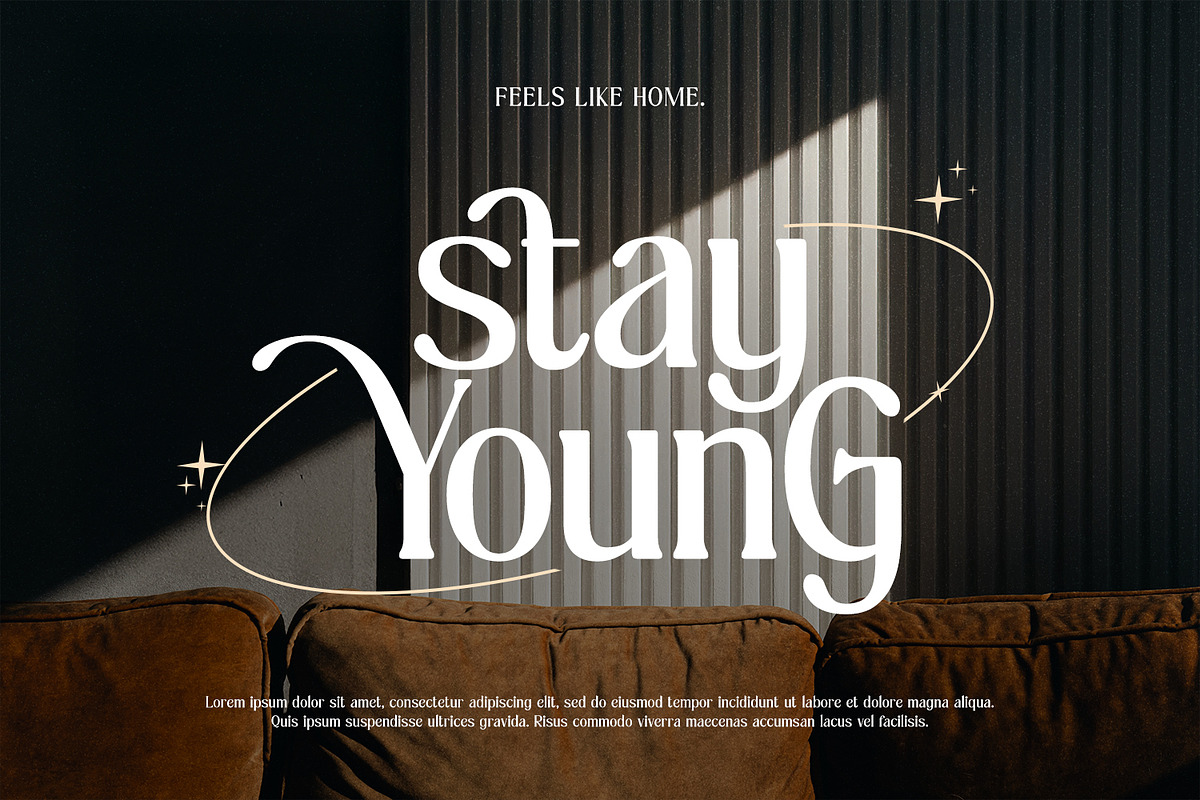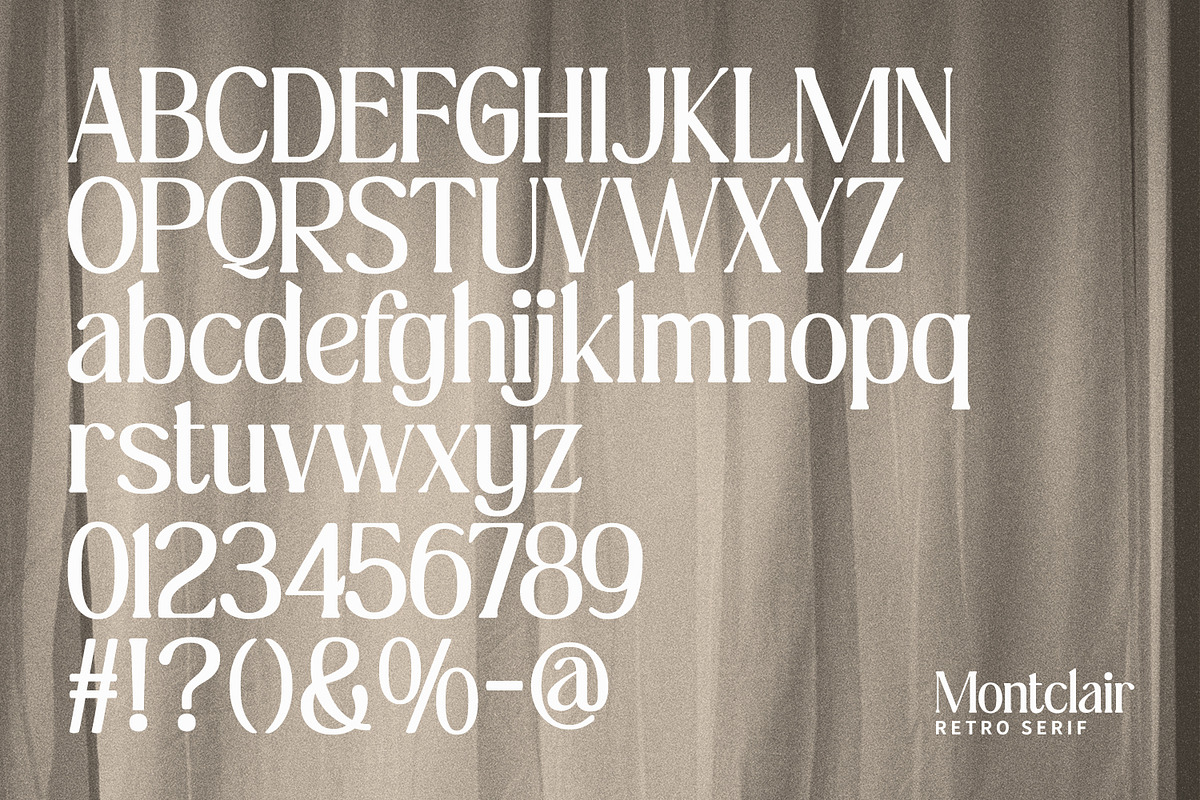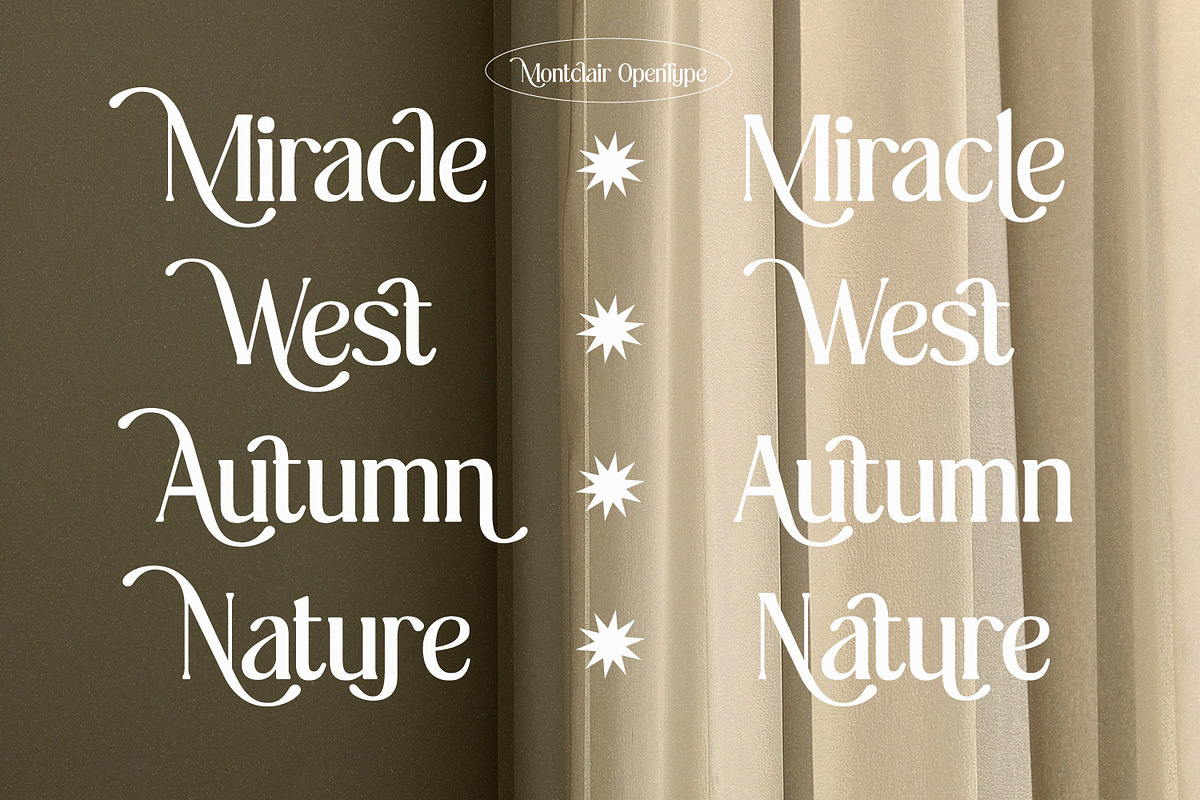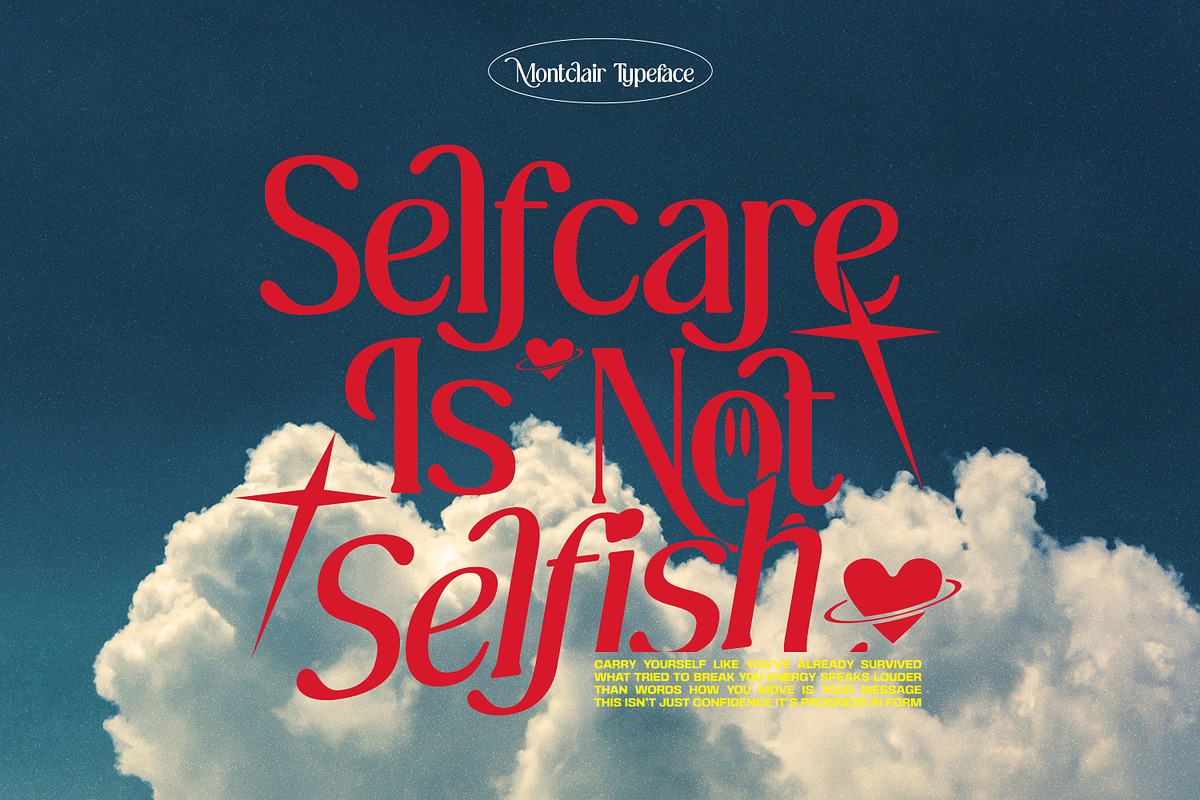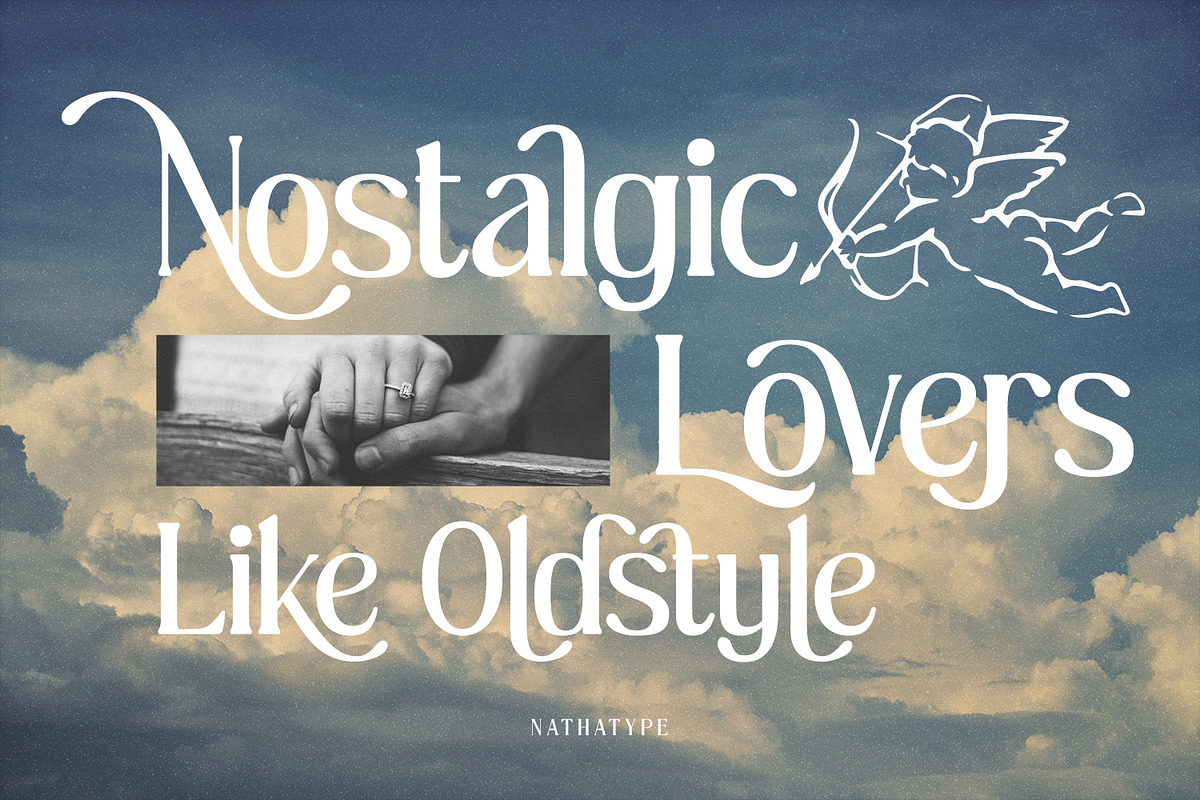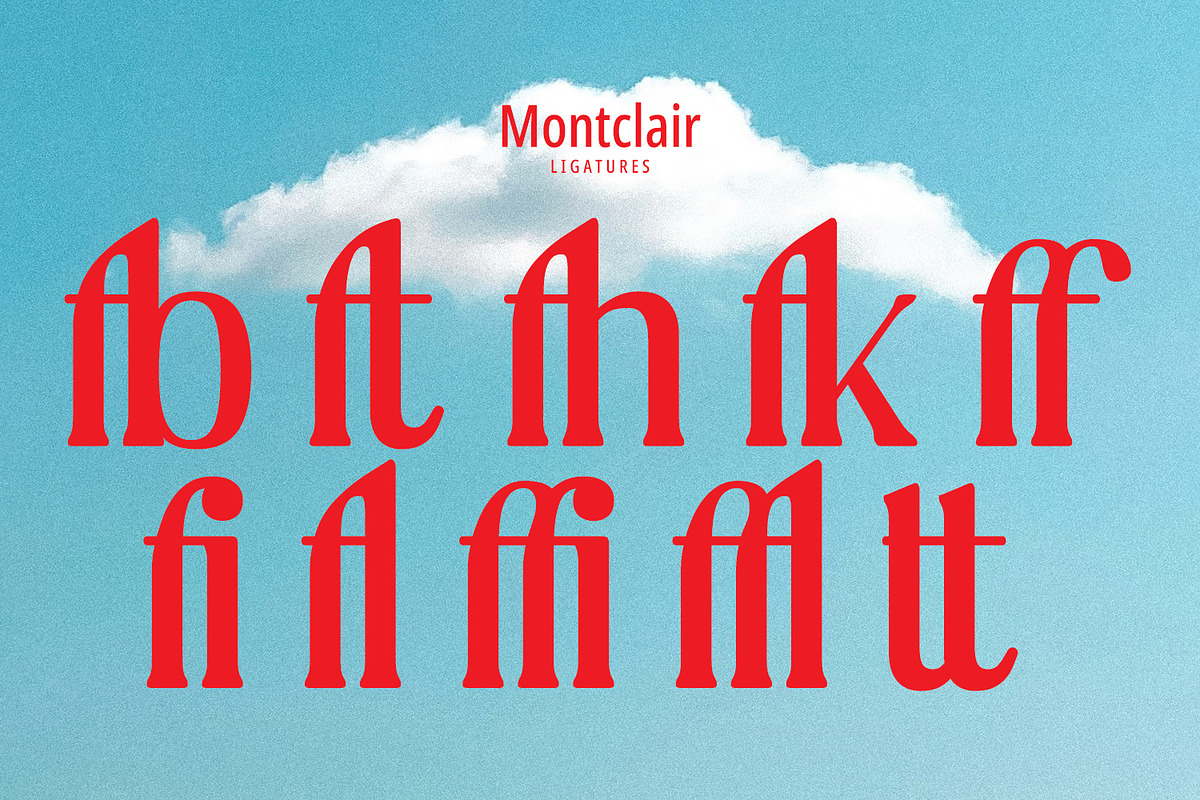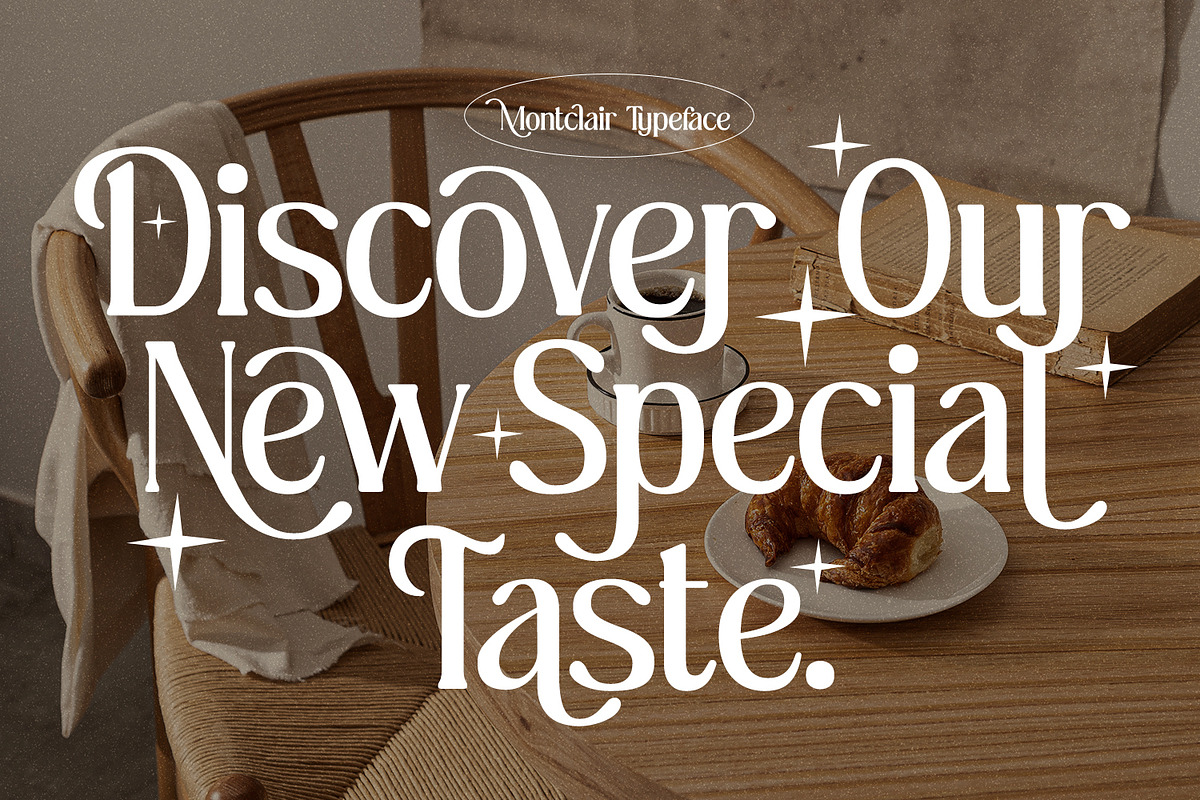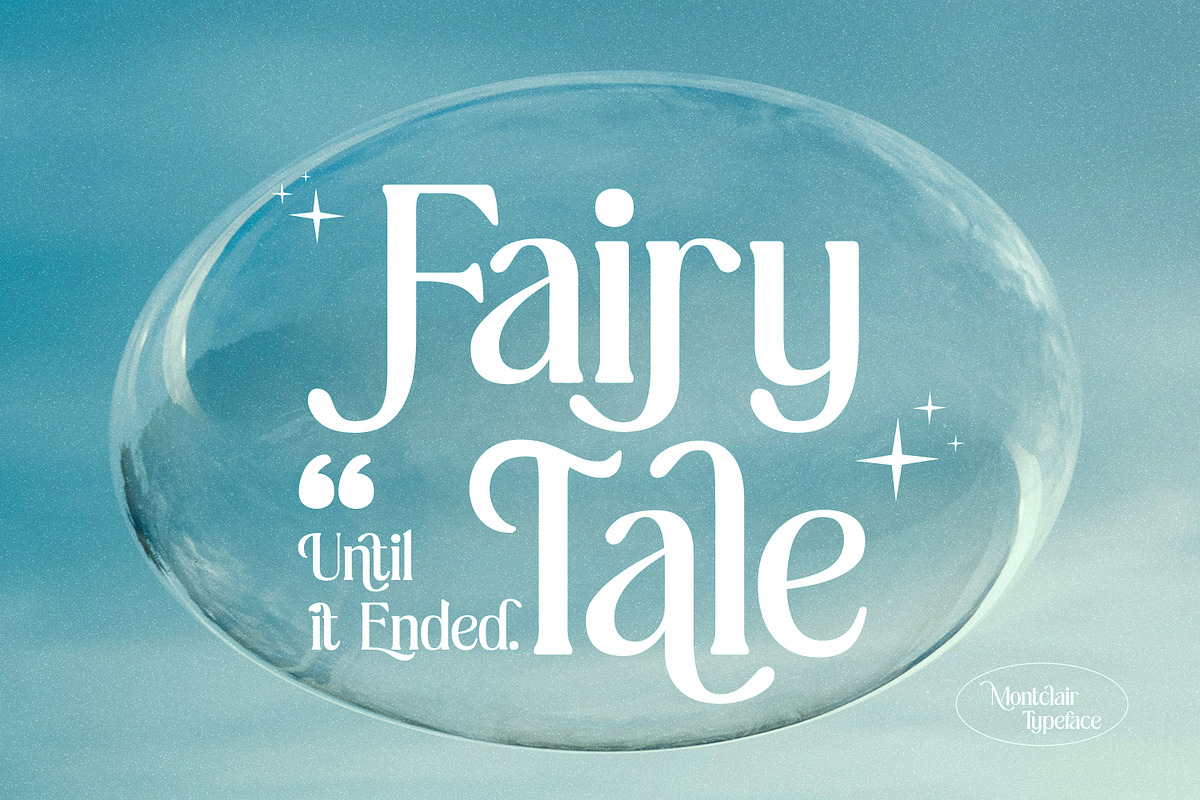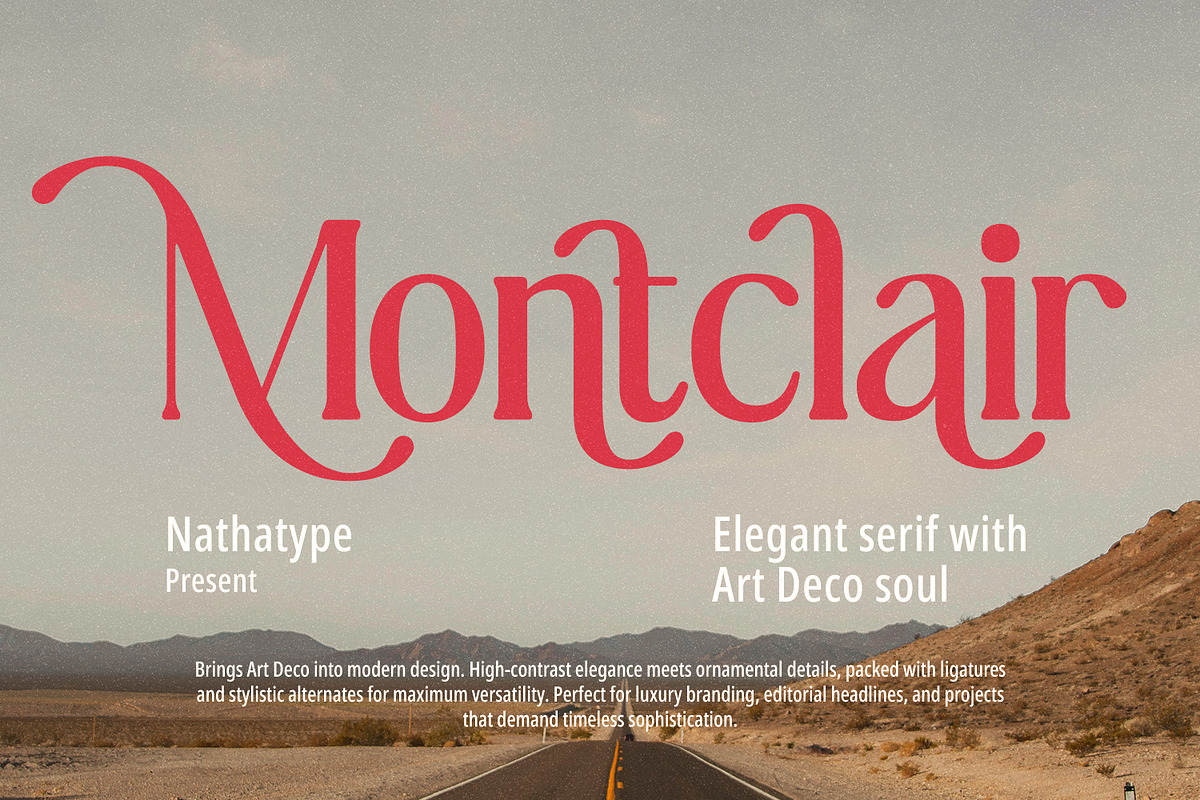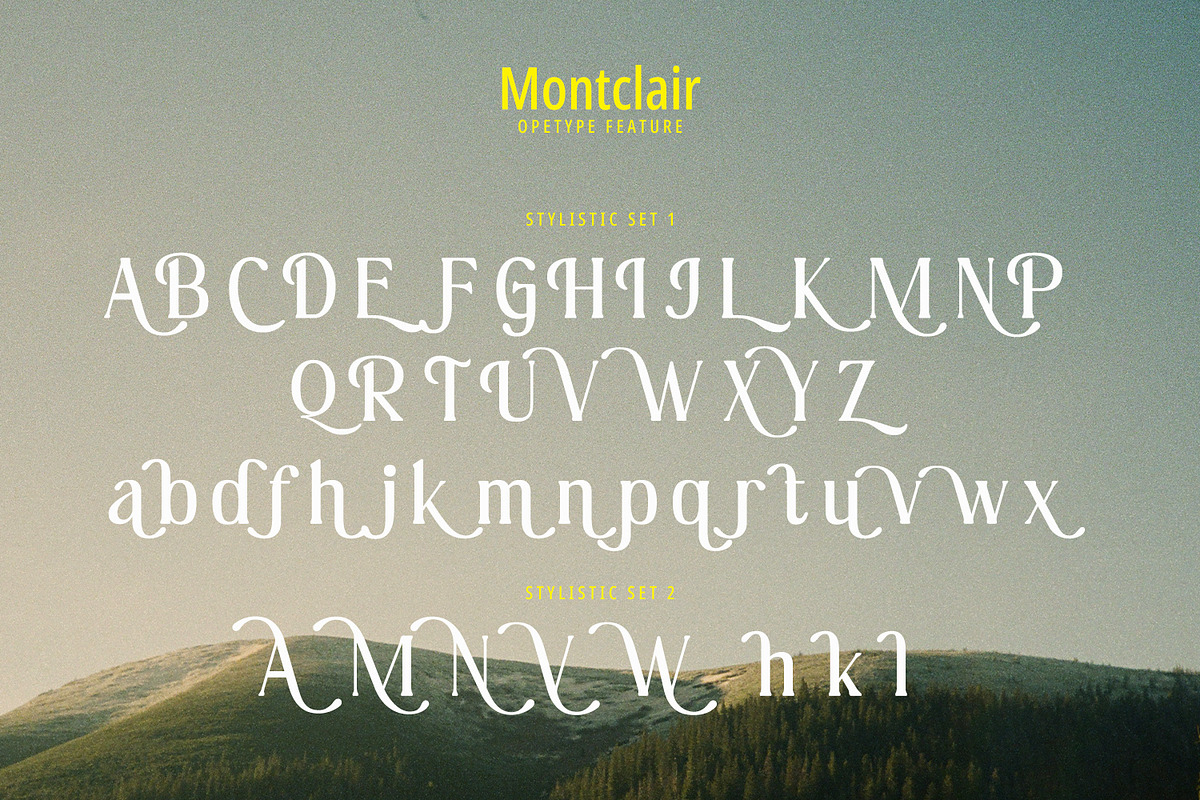
Montclair
Montclair is a modern elegant serif font infused with a distinctive Art Deco soul, designed to bring timeless sophistication and geometric beauty into contemporary design. With its refined letterforms, balanced proportions, and subtle decorative touches, Montclair captures the glamour of the Art Deco era while maintaining a clean, modern edge. The result is a typeface that feels both luxurious and versatile—perfect for designers seeking a serif font that stands out with style and character. In addition, enjoy the features here.
- Stylistic Sets
Montclair fits in logos, quotes, branding, posters, and many more designs. Find out more ways to use this font by taking a look at the font preview.